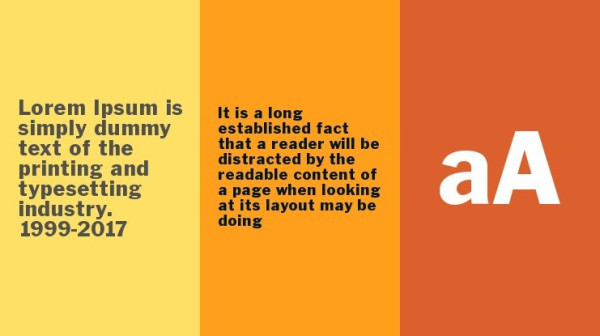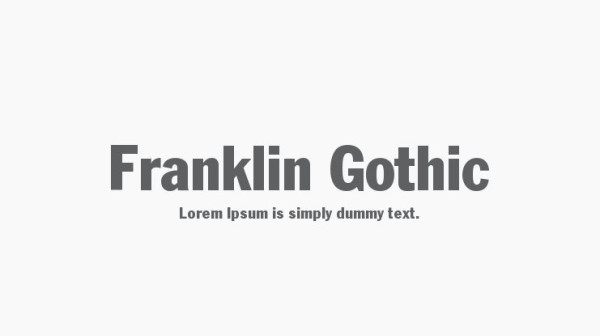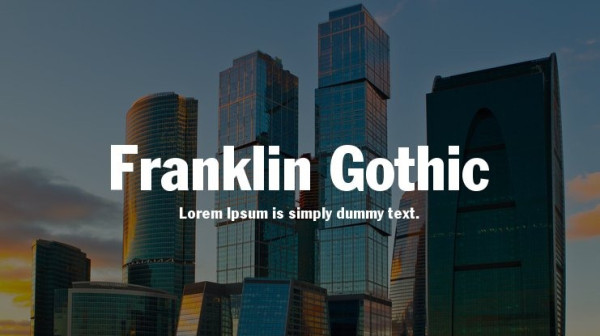
Franklin Gothic Font
Franklin Gothic Font was designed by Morris Fuller Benton for the American Type Founders Company in 1903-1912. Early types without serifs were known by the misnomer “gothic” in America (“grotesque” in Britain and “grotesk” in Germany). There were already many gothics in America in the early 1900s, but Benton was probably influenced by the popular German grotesks: Basic Commercial and Reform from D. Stempel AG. FranklinGothic may have been named for Benjamin Franklin, though the design has no historical relationship to that famous early American printer and statesman. Benton was a prolific designer, and he designed several other sans serif fonts, including Alternate Gothic, Lightline Gothic and News Gothic. Recognizable aspects of FranklinGothic include the two-story a and g, subtle stroke contrast, and the thinning of round strokes as they merge into stems. The type appears dark and monotone overall, giving it a robustly modern look. FranklinGothic is still one of the most widely used sans serifs; it’s a suitable choice for newspapers, advertising and posters.